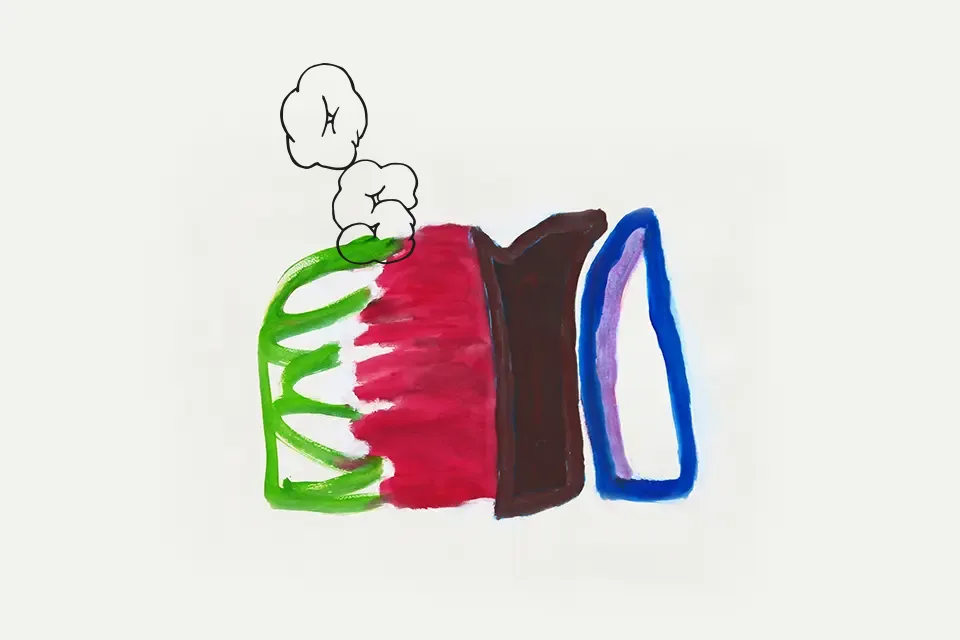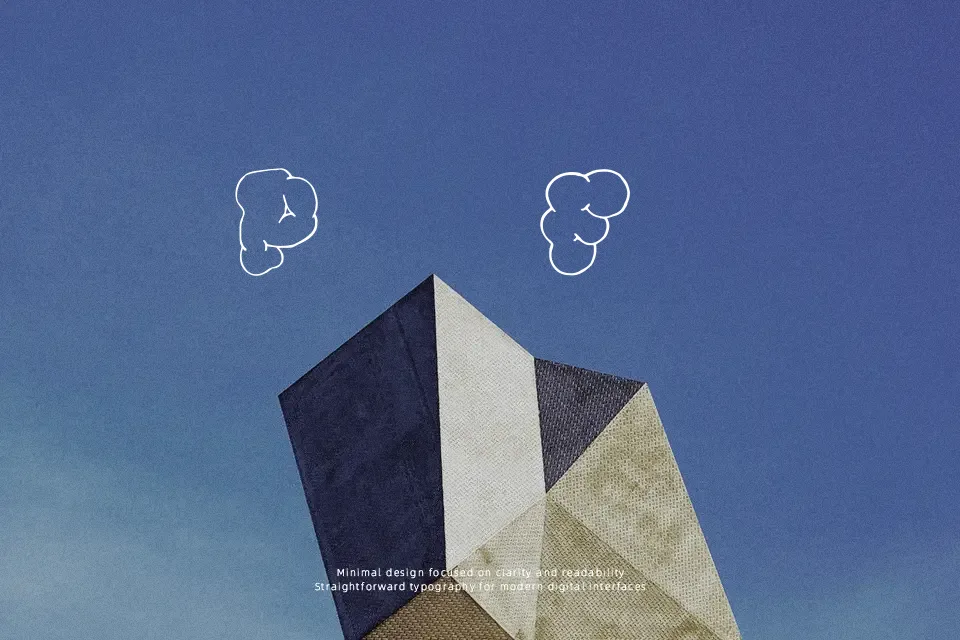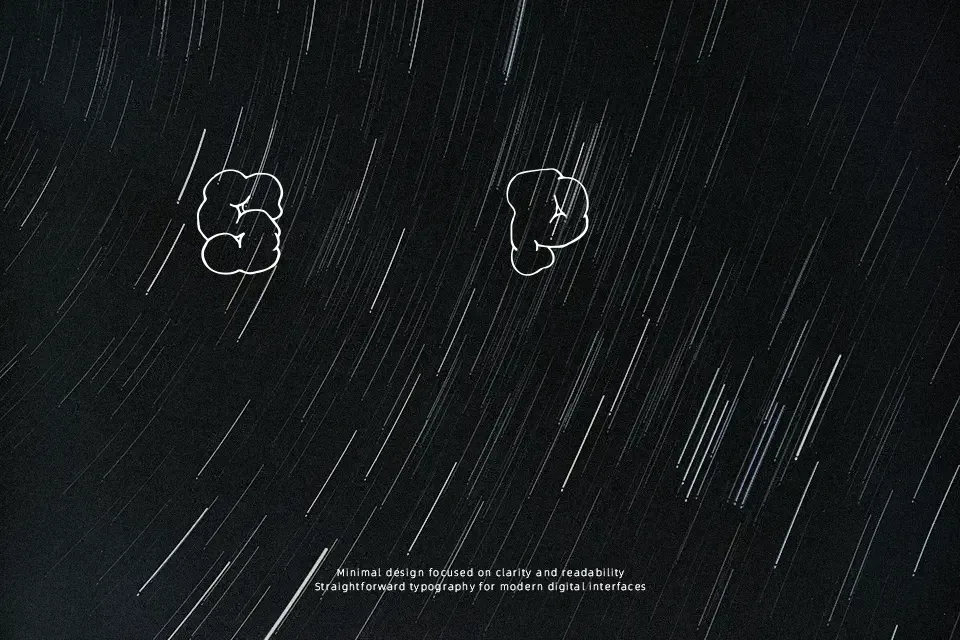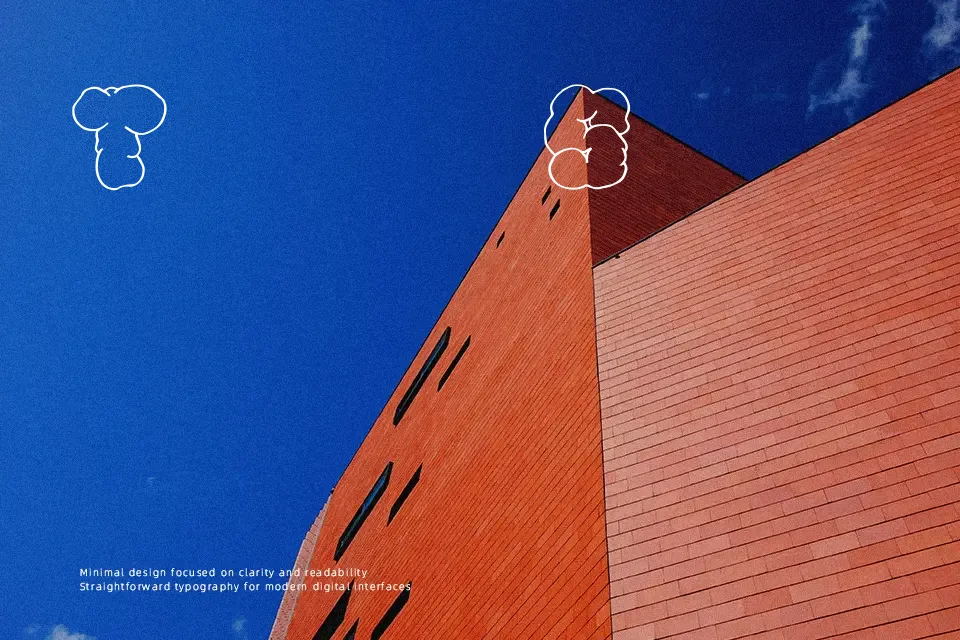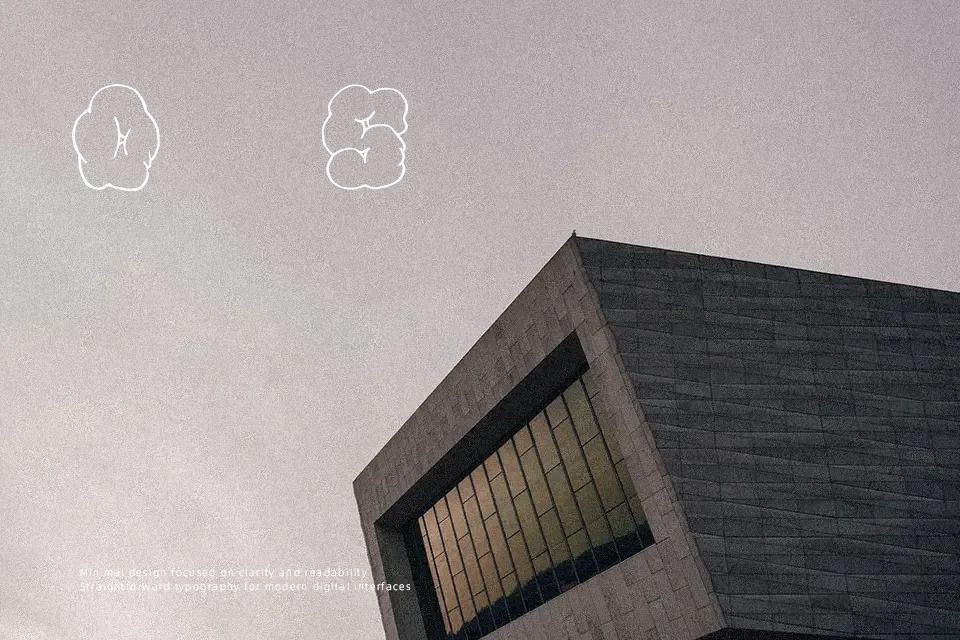
Bigardo Fanzine 3 Font
Bigardo Fanzine 3 leans into a loose, hand-drawn comic look, with uneven curves, chunky strokes, and lively spacing that feels more sketched than typeset. Its decorative shapes give headlines a casual, energetic rhythm that fits DIY zines, alternative event flyers, and youth-focused graphics. Because the characters are busy and stylized, it quickly becomes tiring in long paragraphs or small sizes, so it works best when used sparingly as a display accent. When you lean on it for short words, logos, or section titles, it adds charm and personality; when pushed into dense copy or formal layouts, it can look cluttered and unprofessional.
zine and comic-style covers
alternative event posters and flyers
playful logo marks and wordmarks
long paragraph text or body copy
formal corporate or editorial documents
interface text or small on-screen labels
projects needing a clean, minimal look
Perfect for branding, headline, and kids, with a artistic and cartoon style.